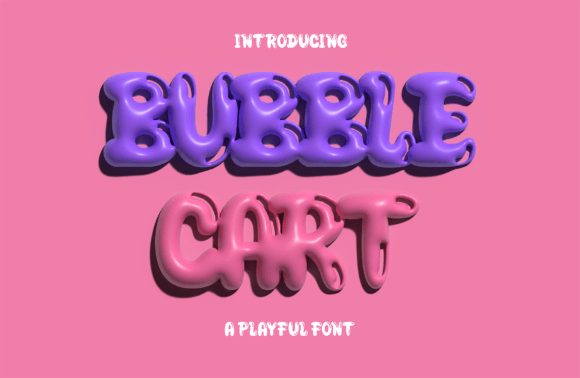
Bubble Cart Font: A Playful, Groovy, and Bubbly Display Typeface
The world of typography is vast and diverse, with countless fonts to choose from, each with its unique character and personality. Among these, the Bubble Cart font stands out as a playful, groovy, and bubbly display typeface that brings a cheerful vibe to any text. With its charming, rounded letters, this font is perfect for expressing affection and happiness, making it ideal for creating eye-catching titles, invitations, or social media posts.
Key Features of Bubble Cart Font
- Playful and Groovy Design: The Bubble Cart font boasts a playful and groovy design, characterized by its rounded letters and charming appearance.
- Fluffy and Fun: This font is incredibly fluffy and fun, making it perfect for designs that require a lighthearted and cheerful touch.
- Charming and Rounded Letters: The Bubble Cart font features charming, rounded letters that bring a sense of warmth and friendliness to any text.
- Perfect for Expressing Affection and Happiness: With its bubbly and cheerful design, this font is ideal for expressing affection and happiness in various designs.
Creative Ways to Use Bubble Cart Font
The Bubble Cart font is versatile and can be used in a variety of creative ways. Here are some ideas to get you started:
- Eye-Catching Titles: Use the Bubble Cart font to create eye-catching titles for your blog posts, articles, or website headers.
- Invitations and Party Decor: This font is perfect for creating invitations, party decor, and other festive materials that require a playful and cheerful touch.
- Social Media Posts: Add a touch of whimsy to your social media posts with the Bubble Cart font, making them stand out and grab attention.
- Branding and Packaging: Use this font to create unique and memorable branding and packaging designs that showcase your brand’s personality.
Typography Tips for Using Bubble Cart Font
To get the most out of the Bubble Cart font, here are some typography tips to keep in mind:
- Pair with Contrasting Fonts: Pair the Bubble Cart font with contrasting fonts to create visual interest and hierarchy in your designs.
- Experiment with Colors: Try out different colors and gradients to add depth and dimension to your text.
- Play with Size and Scale: Experiment with different font sizes and scales to create visual interest and emphasis.
Font Pairing Ideas with Bubble Cart
Here are some font pairing ideas that work well with the Bubble Cart font:
- Open Sans: Pair the Bubble Cart font with Open Sans for a clean and modern look.
- Lato: Combine the Bubble Cart font with Lato for a smooth and elegant design.
- Merriweather: Pair the Bubble Cart font with Merriweather for a classic and sophisticated look.
In conclusion, the Bubble Cart font is a playful, groovy, and bubbly display typeface that brings a cheerful vibe to any text. With its charming, rounded letters, it’s perfect for expressing affection and happiness, making it ideal for creating eye-catching titles, invitations, or social media posts. By following the typography tips and font pairing ideas outlined in this article, you can get the most out of the Bubble Cart font and add a touch of whimsy to your designs.